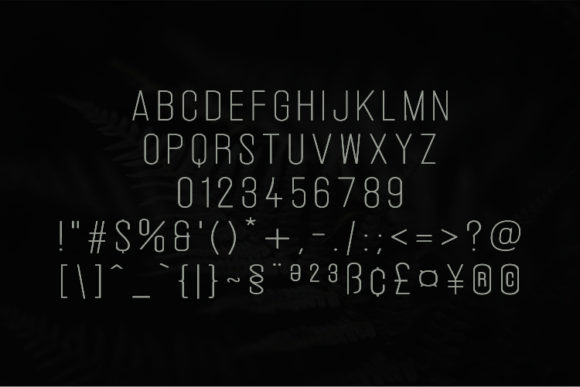
Bartletto Font: Elevate Your Design with a Touch of Sophistication
In the world of typography, fonts play a crucial role in conveying the tone and personality of a design. For designers and crafters looking to add a unique and sophisticated touch to their projects, Bartletto font is an excellent choice. This modern sans serif font has been gaining popularity for its clean lines, elegant curves, and versatility.
What is Bartletto Font?
Bartletto is a modern sans serif font designed to provide a fresh and contemporary look to various design projects. Its sleek and minimalist aesthetic makes it perfect for designers who want to create a clean and sophisticated visual identity. The font’s simplicity and elegance allow it to adapt seamlessly to different design contexts, from branding and advertising to packaging and digital media.
Key Features of Bartletto Font
- Modern Sans Serif Design: Bartletto boasts a modern sans serif design, characterized by clean lines, simple shapes, and a complete absence of decorative flourishes.
- Unique and Sophisticated: The font’s unique and sophisticated style sets it apart from more traditional fonts, making it ideal for designers looking to create a distinctive visual identity.
- Versatile: Bartletto is highly versatile and can be used across various design projects, including branding, advertising, packaging, and digital media.
- Elegant Curves: The font features elegant curves that add a touch of sophistication and refinement to any design.
Benefits of Using Bartletto Font
Using Bartletto font in your design projects offers several benefits, including:
- Enhanced Visual Appeal: Bartletto’s modern and sophisticated design enhances the visual appeal of any project, making it more engaging and attention-grabbing.
- Improved Readability: The font’s clean lines and simple shapes ensure excellent readability, even at smaller font sizes.
- Flexibility: Bartletto’s versatility allows it to be used across various design projects and industries, making it a valuable addition to any designer’s font library.
- Unique Brand Identity: By using Bartletto font, designers can create a unique brand identity that sets their clients apart from competitors.
How to Use Bartletto Font in Your Design Projects
Incorporating Bartletto font into your design projects is easy and straightforward. Here are some tips to get you started:
- Pair with Other Fonts: Experiment with pairing Bartletto font with other fonts to create a unique and visually appealing typography.
- Adjust Font Sizes and Weights: Play with different font sizes and weights to create visual hierarchy and emphasize key elements in your design.
- Use in Branding and Advertising: Use Bartletto font in branding and advertising projects to create a sophisticated and modern visual identity.
- Experiment with Colors: Try pairing Bartletto font with different colors to create a bold and eye-catching design.
In conclusion, Bartletto font is a modern sans serif font that offers a unique and sophisticated touch to any design project. Its clean lines, elegant curves, and versatility make it an excellent choice for designers and crafters looking to elevate their designs. By incorporating Bartletto font into your design projects, you can create a visually appealing and distinctive visual identity that sets your clients apart from competitors.